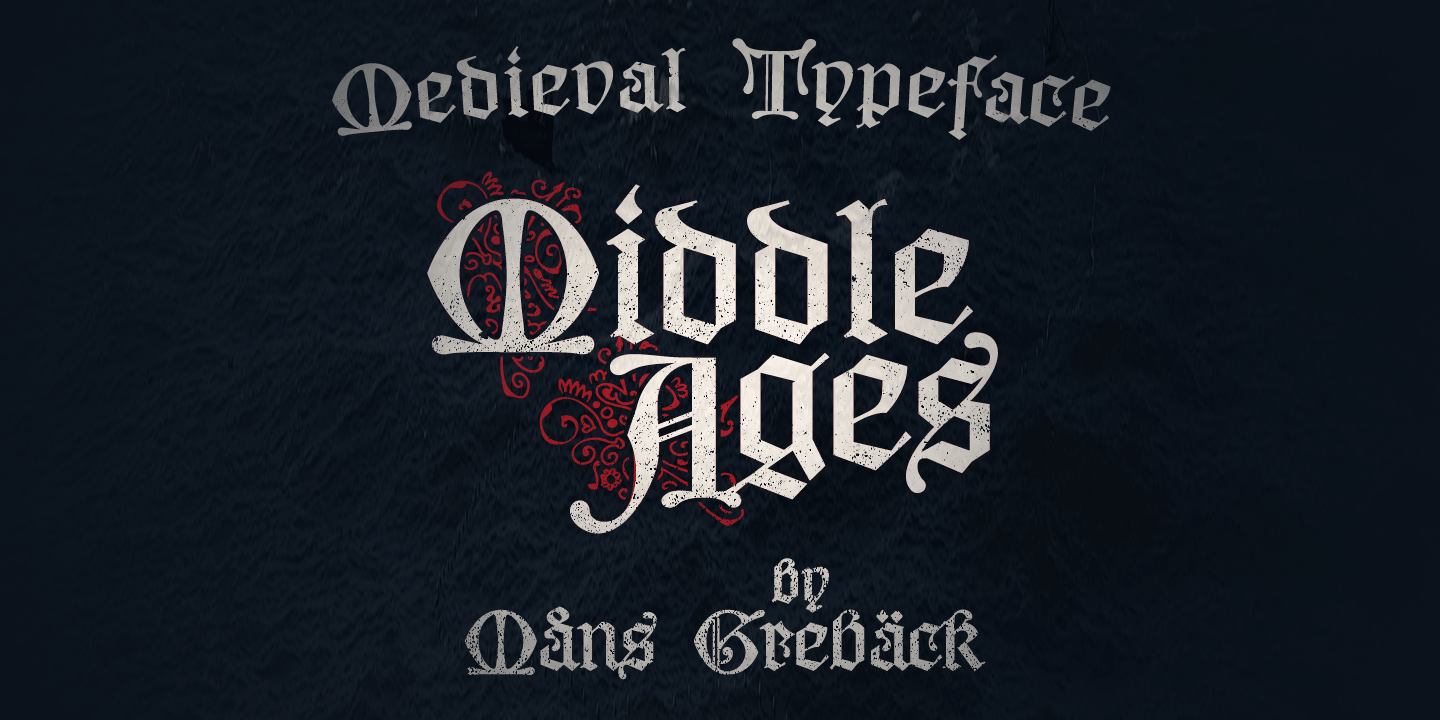
This medieval typeface is perfect for historical museums, castle tourism, fantasy gaming interfaces, renaissance festivals, medieval restaurant branding, period drama productions, historical documentaries, ancient manuscript reproductions, traditional craft guilds, medieval wedding themes, fantasy book covers, and heritage interpretation centers. The font's period-authentic design makes it ideal for projects that celebrate medieval history, feudal traditions, and the mystical atmosphere of ancient times.
Middle Ages Font is exciting because it transports viewers to the era of knights and castles through its authentic medieval letterforms and period-inspired character structure. The font's ornate details and historical proportions create an atmosphere of ancient wisdom, feudal grandeur, and mystical enchantment, making it perfect for brands that want to convey tradition, authenticity, and the timeless appeal of medieval heritage. Its historical personality ensures instant immersion while maintaining excellent readability across various period applications.
The Middle Ages Font family includes multiple feudal variations: Light Squire, Regular Knight, Medium Baron, Bold Lord, and Black King weights, each available in standard and illuminated versions. Special manuscript editions feature decorative initials, medieval ornaments, and period flourishes that enhance the font's historical appeal, providing designers with comprehensive tools for creating authentic medieval communications.
Journey back in time with Middle Ages Font Free Download – a typeface that embodies the majesty and mystery of medieval civilization. Whether you're developing historical branding, fantasy entertainment projects, or cultural heritage materials, this font delivers the authentic medieval character and period atmosphere your projects need while ensuring exceptional performance and captivating historical impact across all medieval and fantasy applications.